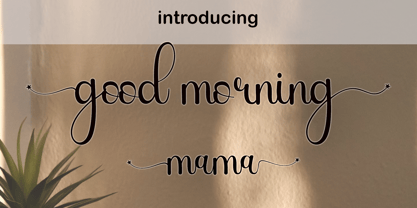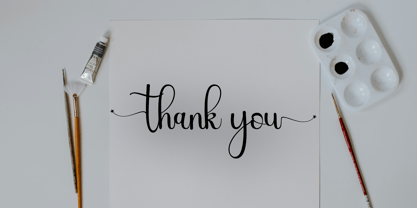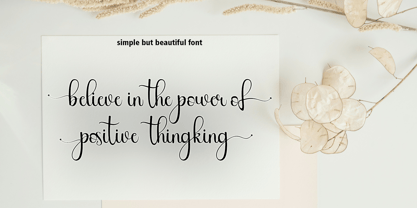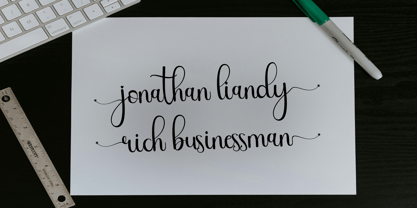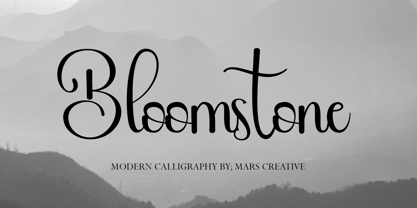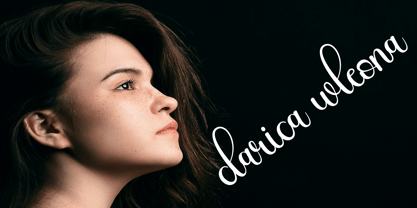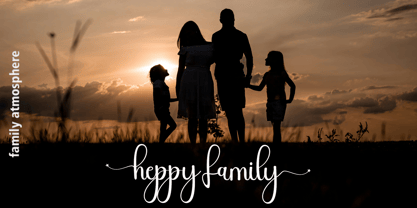
Bloomstone Script
by Mars Creative
The Bloomstone Script Font Family was designed by Al Muzammil and published by Mars Creative. Bloomstone Script contains 1 styles. More about this family
Bloomstone is a stylish modern calligraphy font with casual chic flair. It is perfect for branding, wedding invites and cards, and maybe for red wine label.
Bloomstone includes full set of gorgeous uppercase and lowercase letters, numerals, a large range of punctuation and ligatures. All lowercase letters include beginning and ending swashes, giving realistic hand-lettered style. What you get, darling?